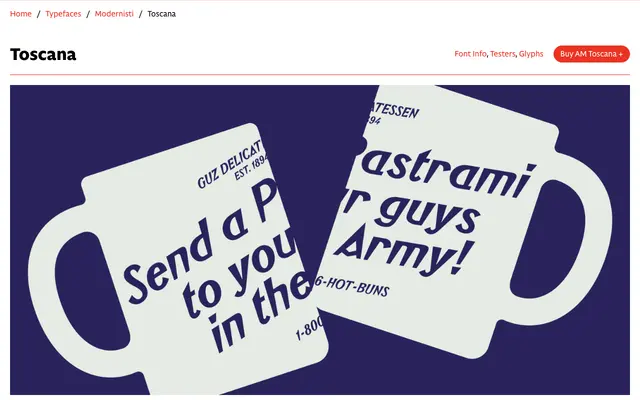
AM Toscana
A revival of a 1934 Italian wood type, distinguished by systematically wedge-tapered stems and vernacular semi-condensed letterforms, designed by Ian Farnam.
Released in 2025 by CAST, AM Toscana revives a wood type originally issued by Xilografia Meneghello e Belluzzo around 1934, itself possibly derived from Wedge Gothic, an American BB&S cut of 1893. Ian Farnam rationalised the weight and proportions, increased the x-height for contemporary legibility, and redesigned the round letters to echo the characteristic tapering of the stems. The result is a single-style italic with tall ascenders, short descenders and a spiky, top-heavy rhythm suited to poster and editorial display work.
A revival of a 1934 Italian wood type, AM Toscana is a semi-condensed italic sans with wedge-tapered stems and vernacular letterforms, placing it firmly in the display category rather than a functional text sans.
Italic